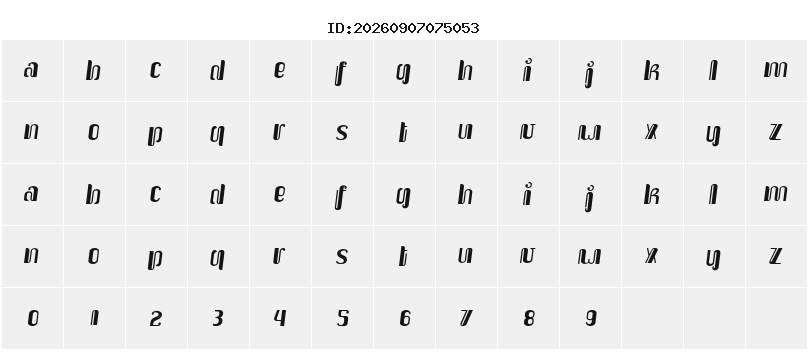
Upakarti Serong Preview
• Font Name: Upakarti Serong
• Full Font Name: Upakarti Serong
About Upakarti Serong.ttf
Upakarti Serong.ttf is a modern, elegant sans-serif font designed for ultimate readability and visual harmony. Perfect for branding, headlines, web design, and print materials.